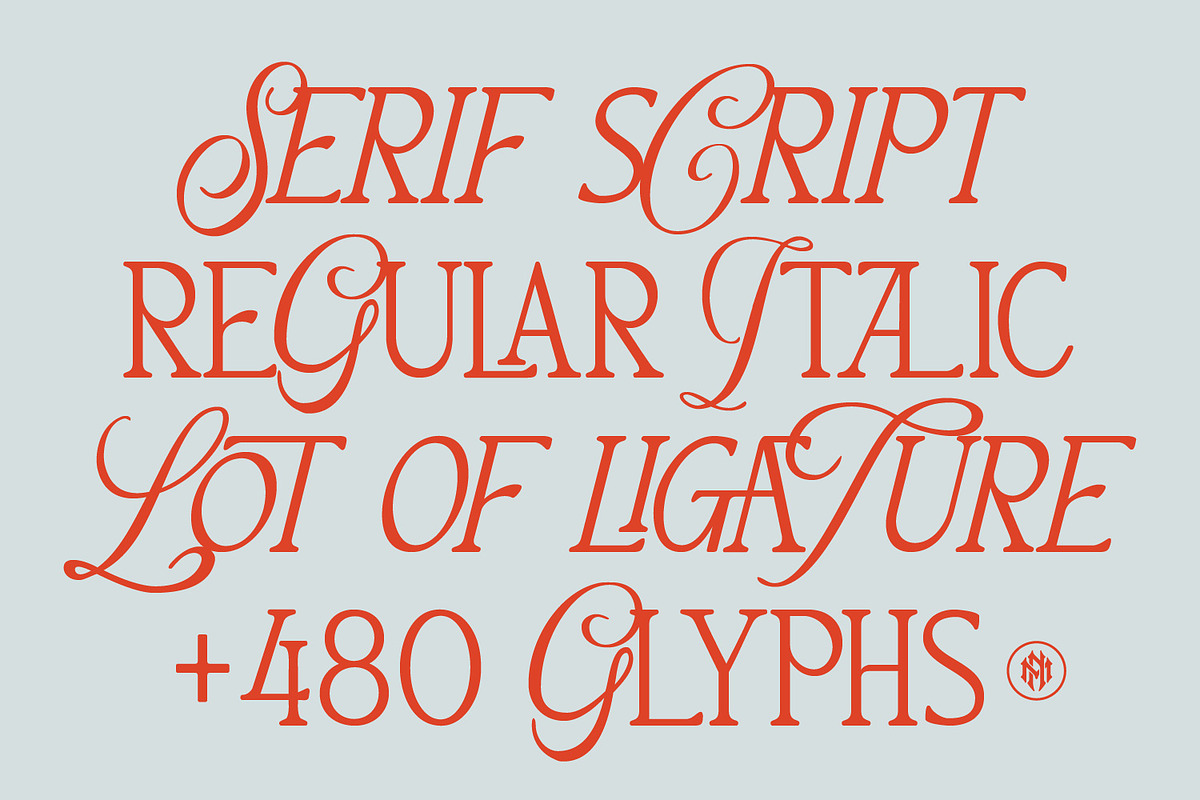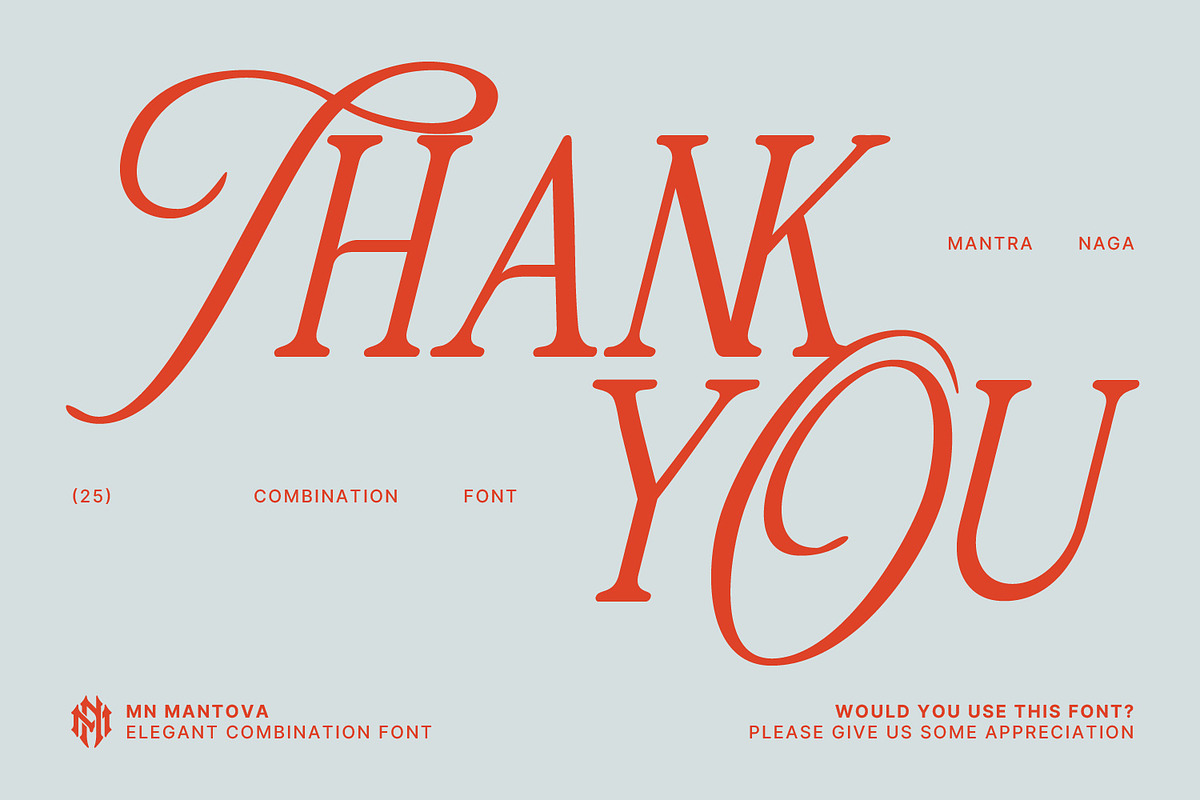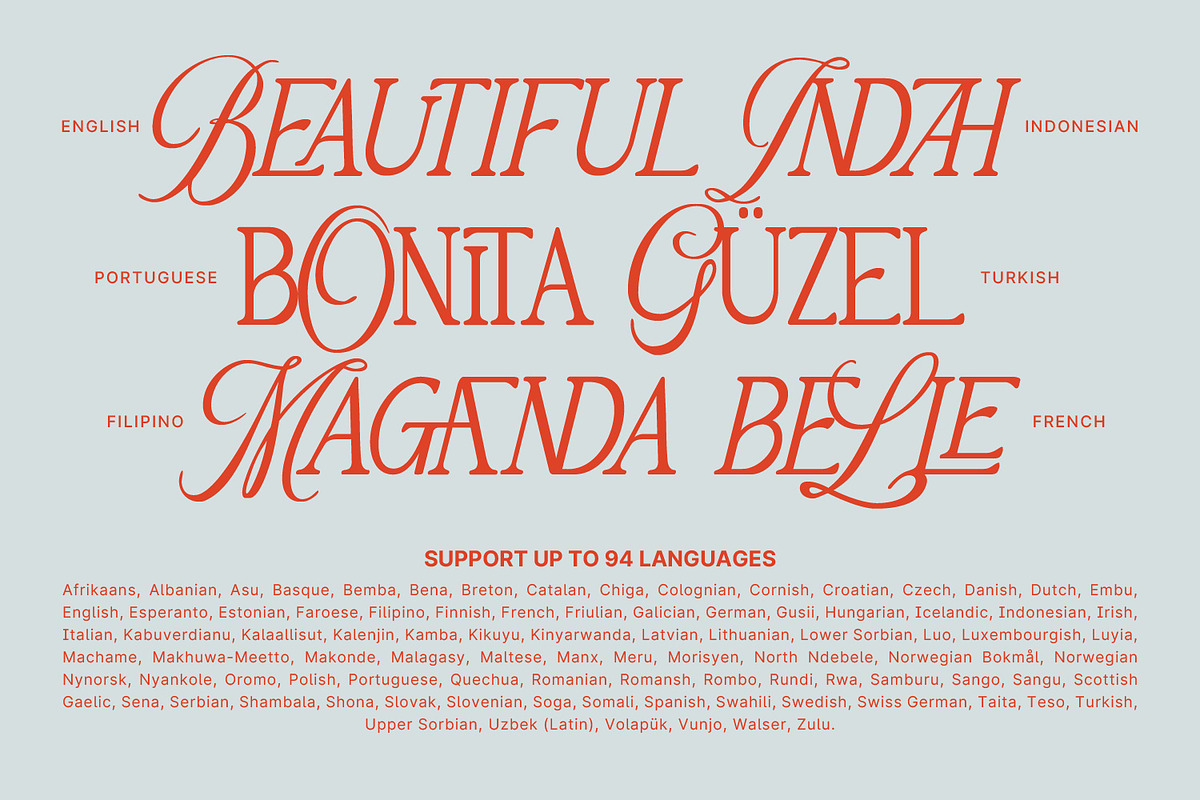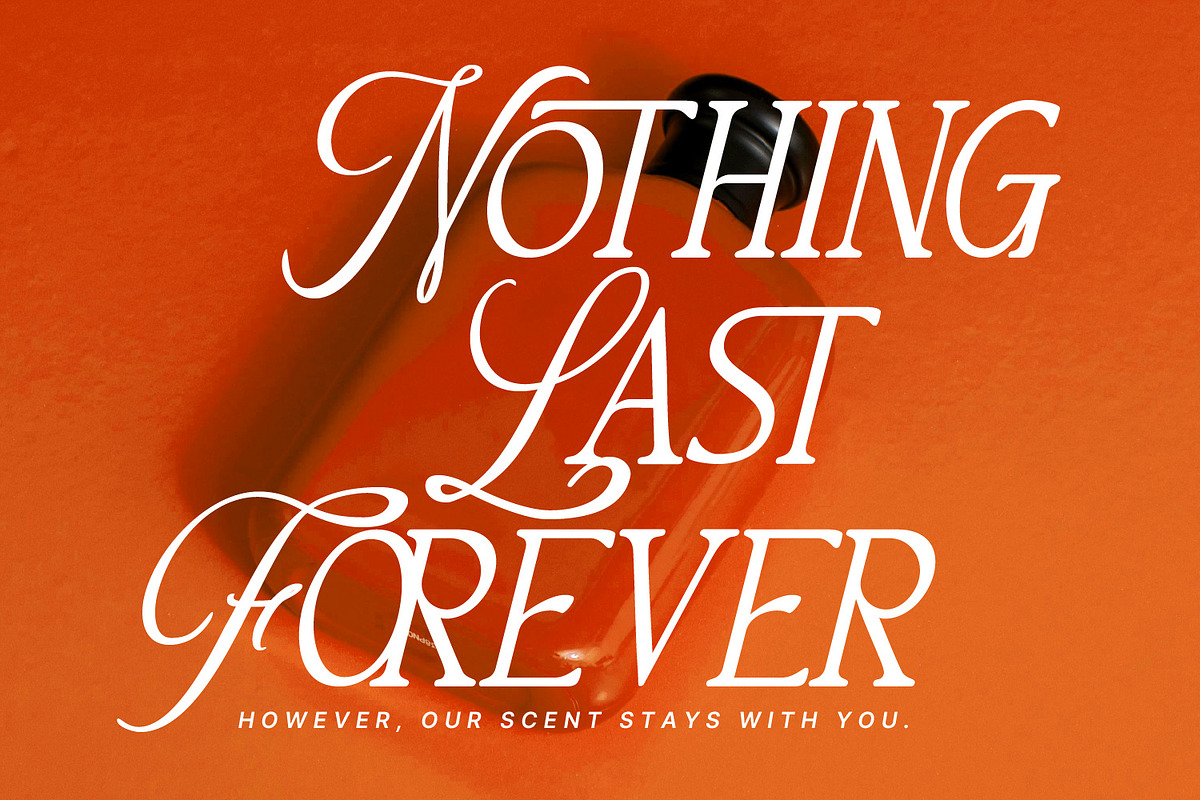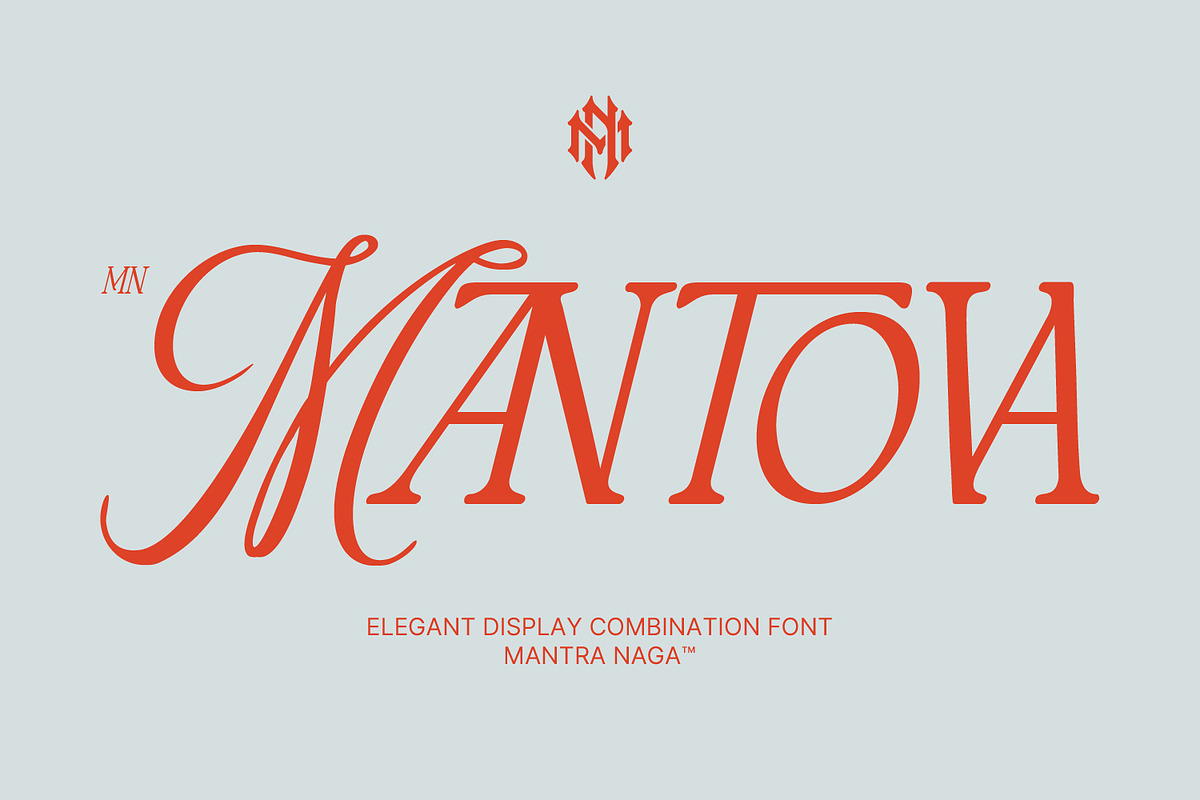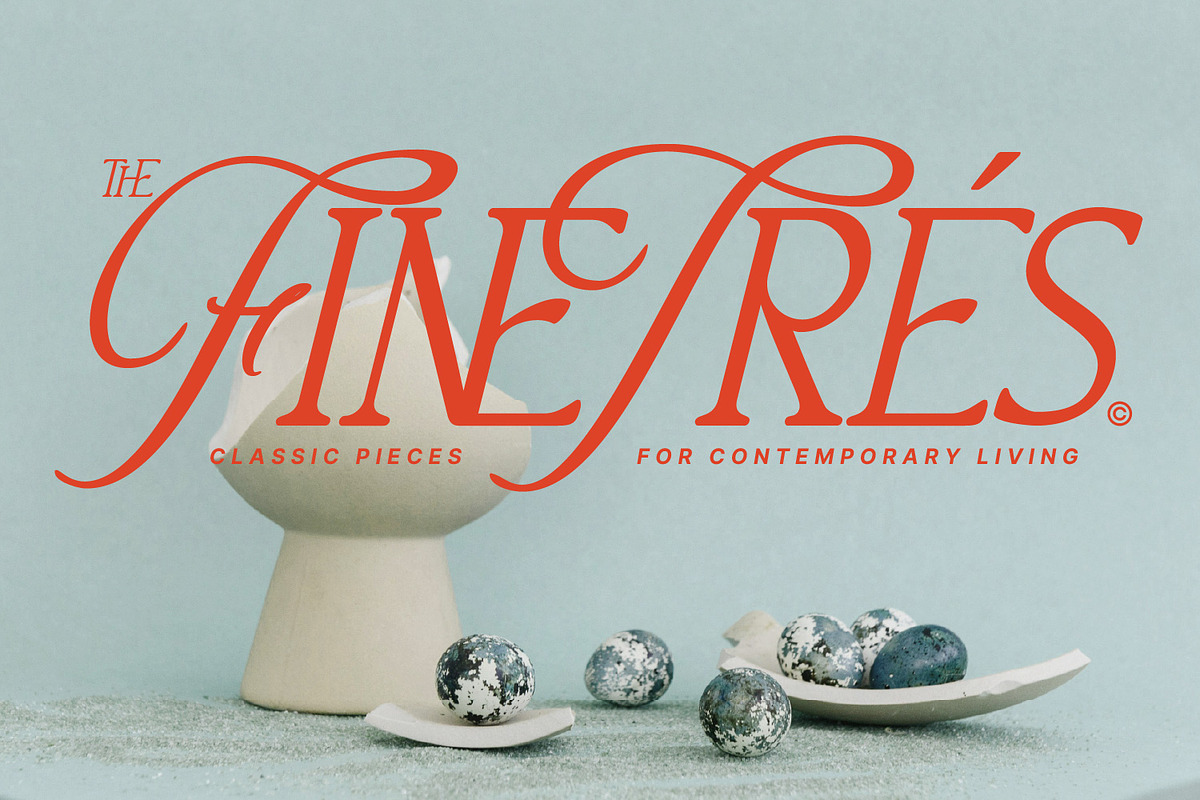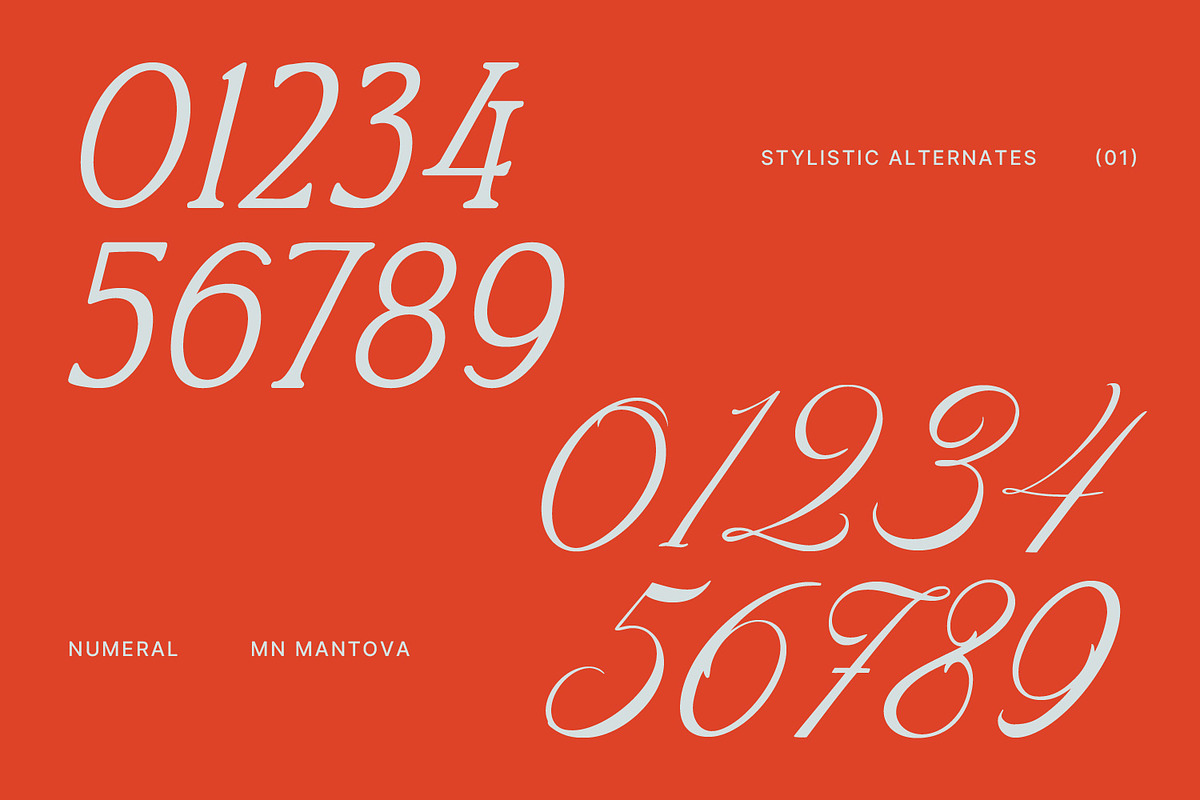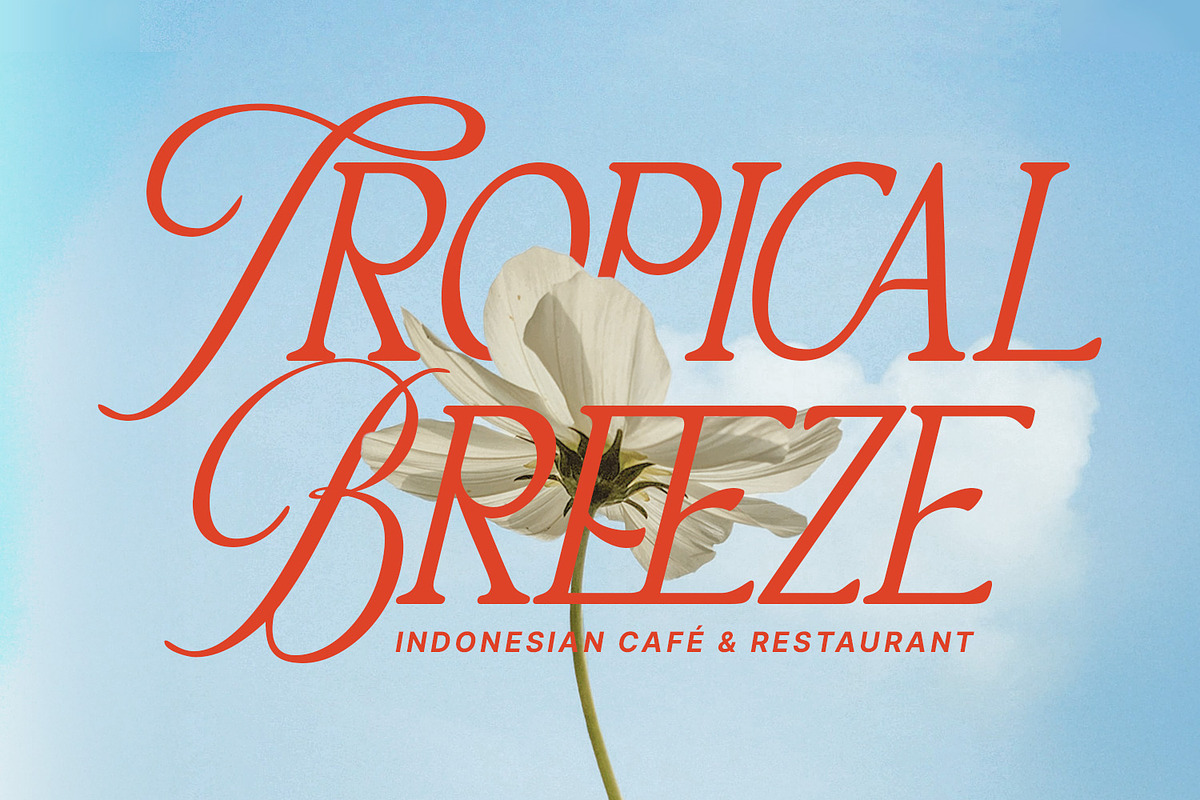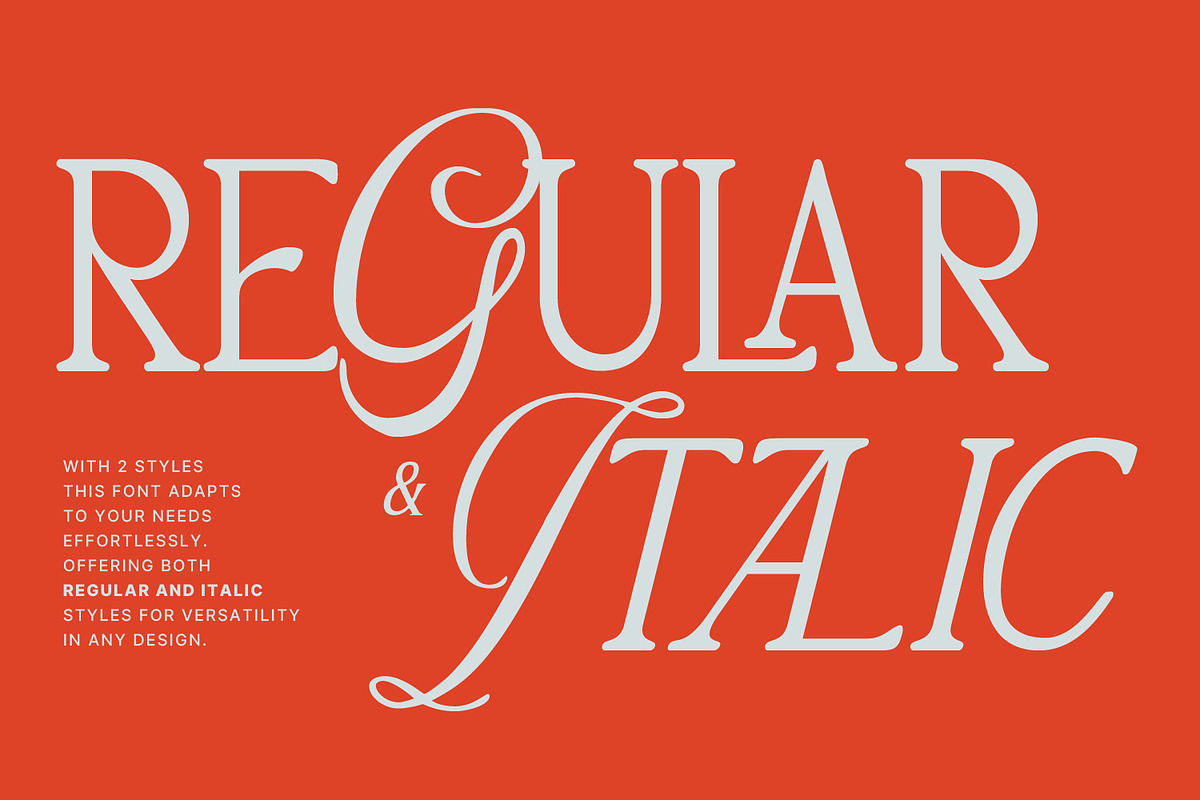
MN Mantova - Elegant Display Font
MN Mantova is a stylish elegant display combination font that combines script and serif, classic and modern elements. With Regular and Italic styles, plus 100 ligatures and alternates, it gives designers plenty of creative options. Featuring 480+ glyphs and support for 94 languages, Mantova is perfect for branding, editorials, invitations, and luxury packaging.